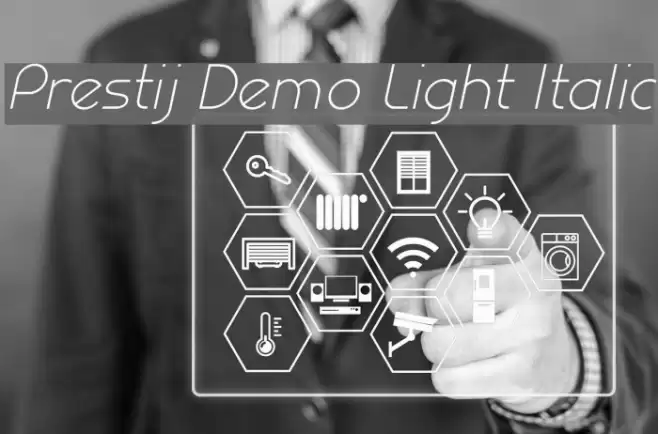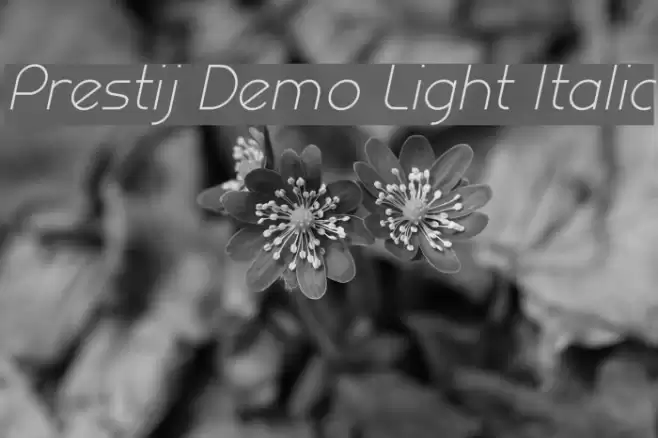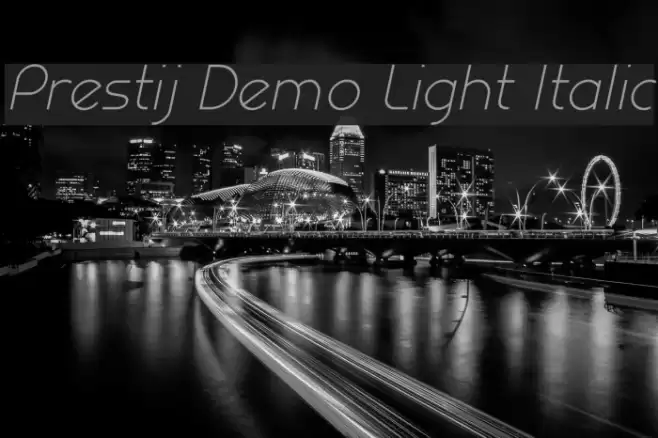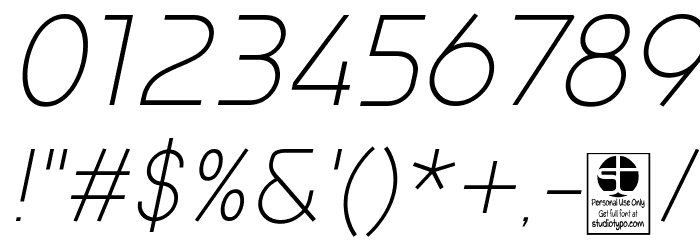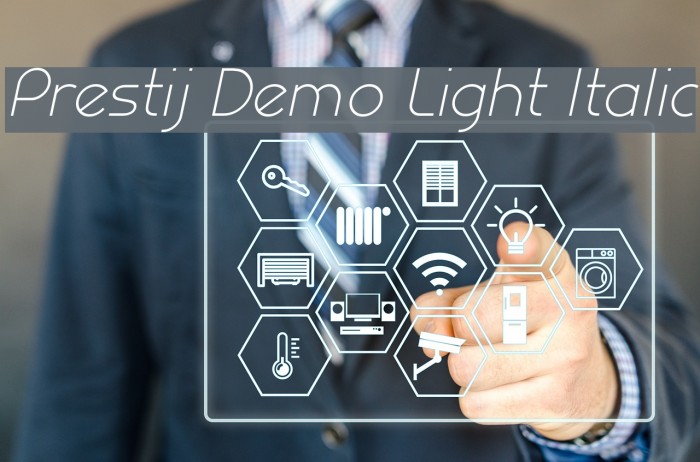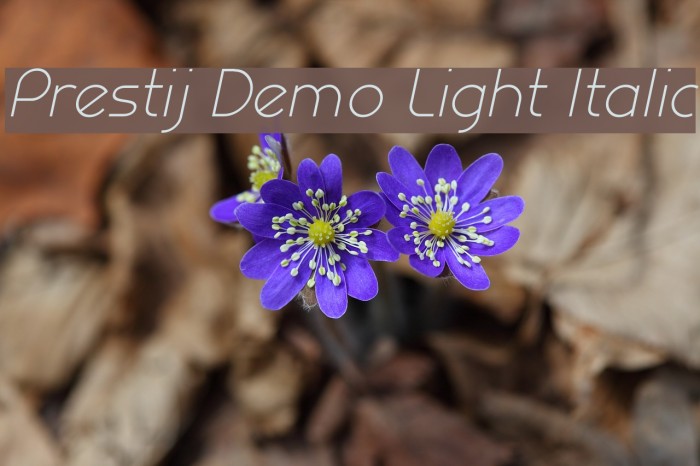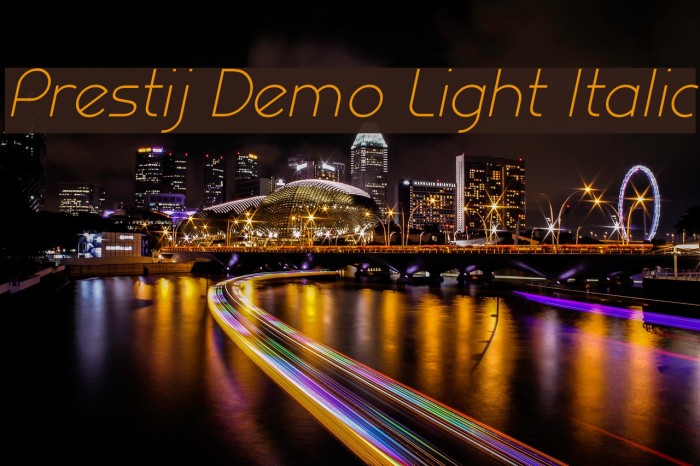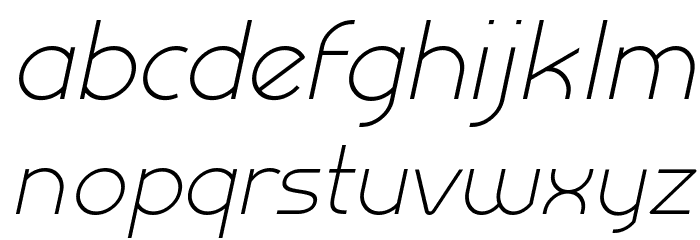
Prestij Demo Light Italic Font
Prestij Demo Light Italic Description
This font features a sleek and modern design with a light and airy feel. The characters are elegantly elongated with a slight italic slant, giving it a sophisticated and dynamic appearance. The strokes are thin and consistent, contributing to its light weight and enhancing readability. The overall design is clean and minimalistic, making it suitable for contemporary projects. The spacing between characters is balanced, providing a harmonious flow across text. This font's style is both versatile and stylish, ideal for creating a refined and polished look.
A sleek, modern, and light italic font with elegant elongated characters from Uncategorized fonts.